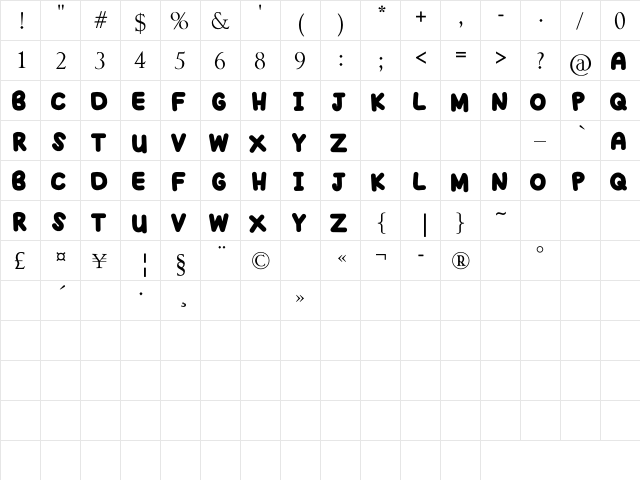
THE JHONNY TAN Regular
Design Context for THE JHONNY TAN Typeface
THE JHONNY TAN offers clean, dependable letterforms without strong stylistic allegiance, making it a practical choice for designers who need flexibility.
Pro Tip: Pair THE JHONNY TAN with a font of contrasting weight or personality to build a more expressive typographic hierarchy.